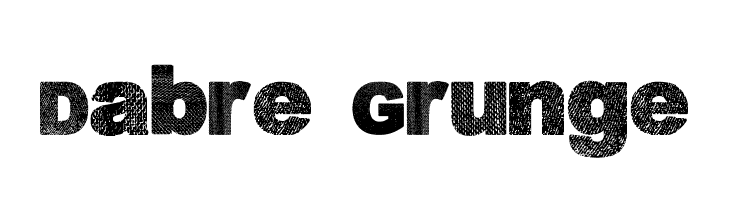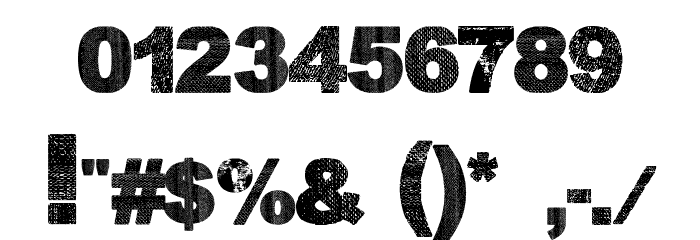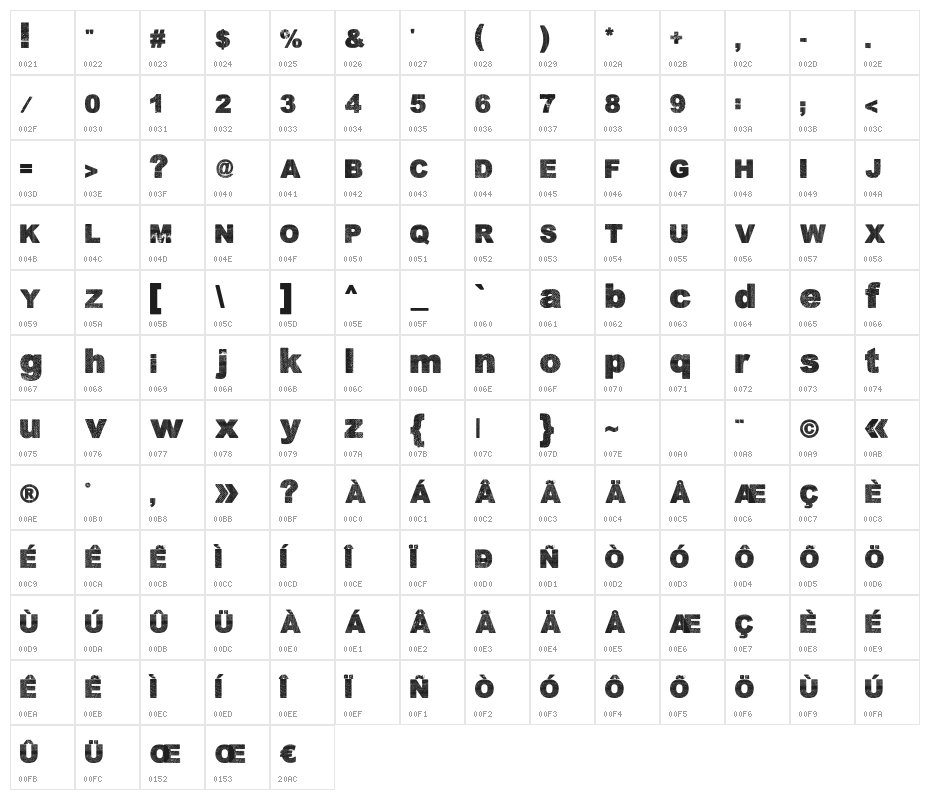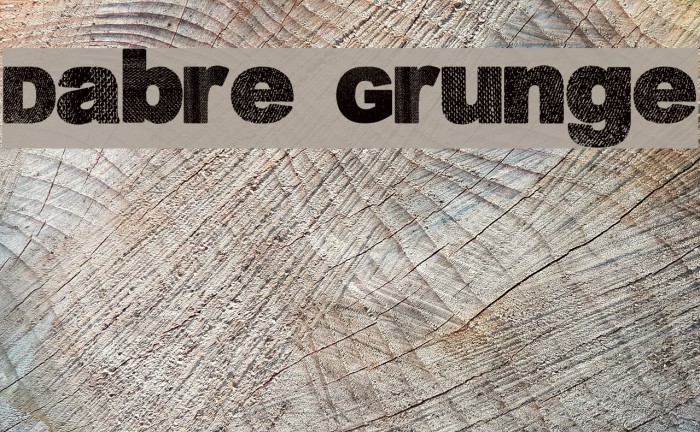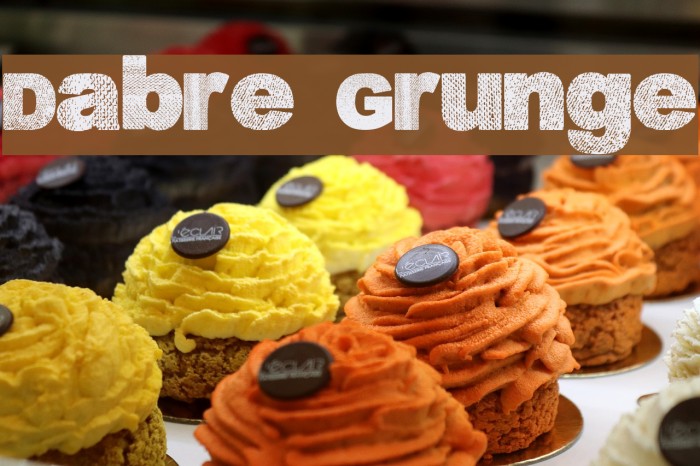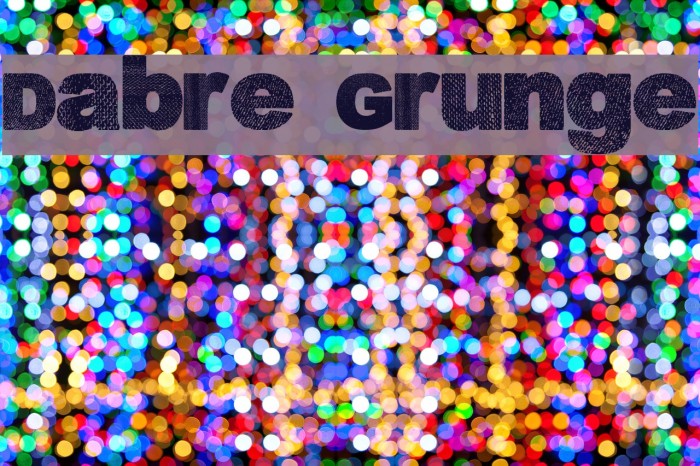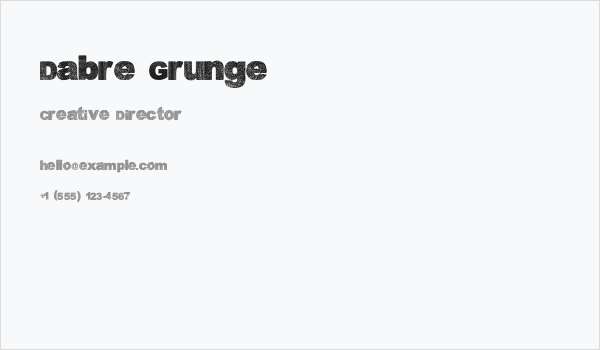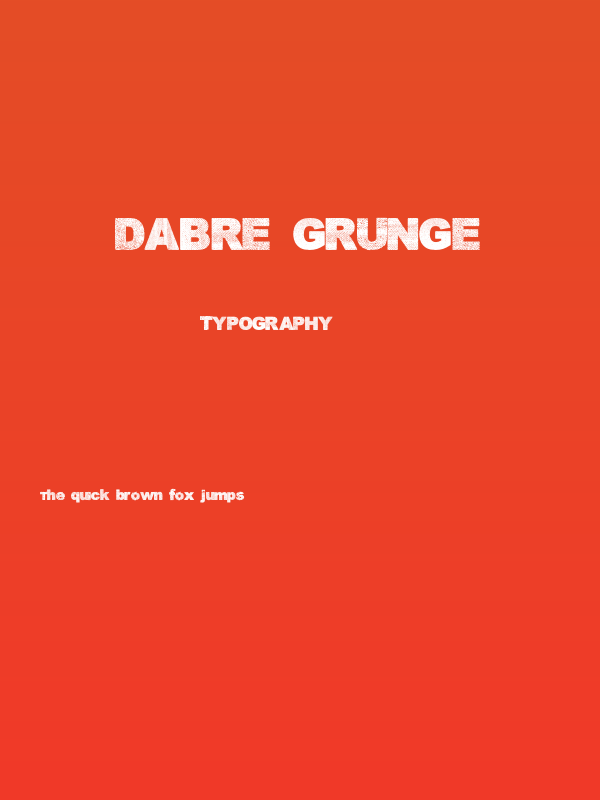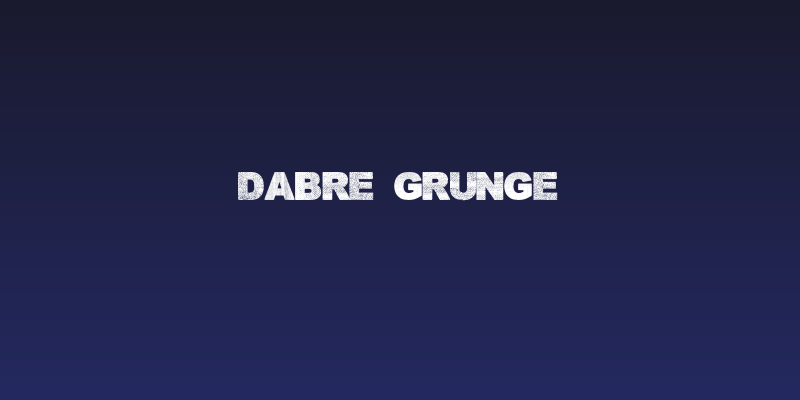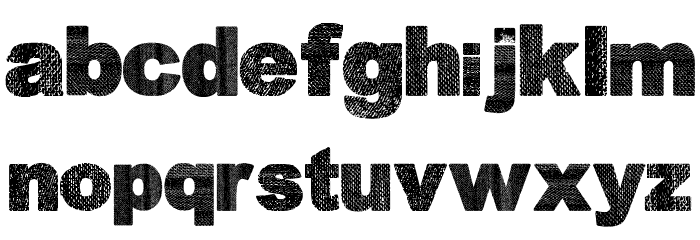
Dabre Grunge Font
Dabre Grunge Description
This font features a bold and distressed style, characterized by a grunge texture that gives it a rugged and edgy appearance. The uppercase and lowercase letters are uniformly bold, with a consistent distressed pattern that adds a sense of depth and texture. The numerals and special characters follow the same design, ensuring a cohesive look across all elements. This font's unique style makes it stand out, perfect for projects that require a bold statement or an urban, gritty aesthetic. Its design is both eye-catching and versatile, suitable for a variety of creative applications.
| Overall Style | Grunge, Urban |
| Proposed Projects | Ideal for album covers, posters, urban-themed branding, and apparel design. |